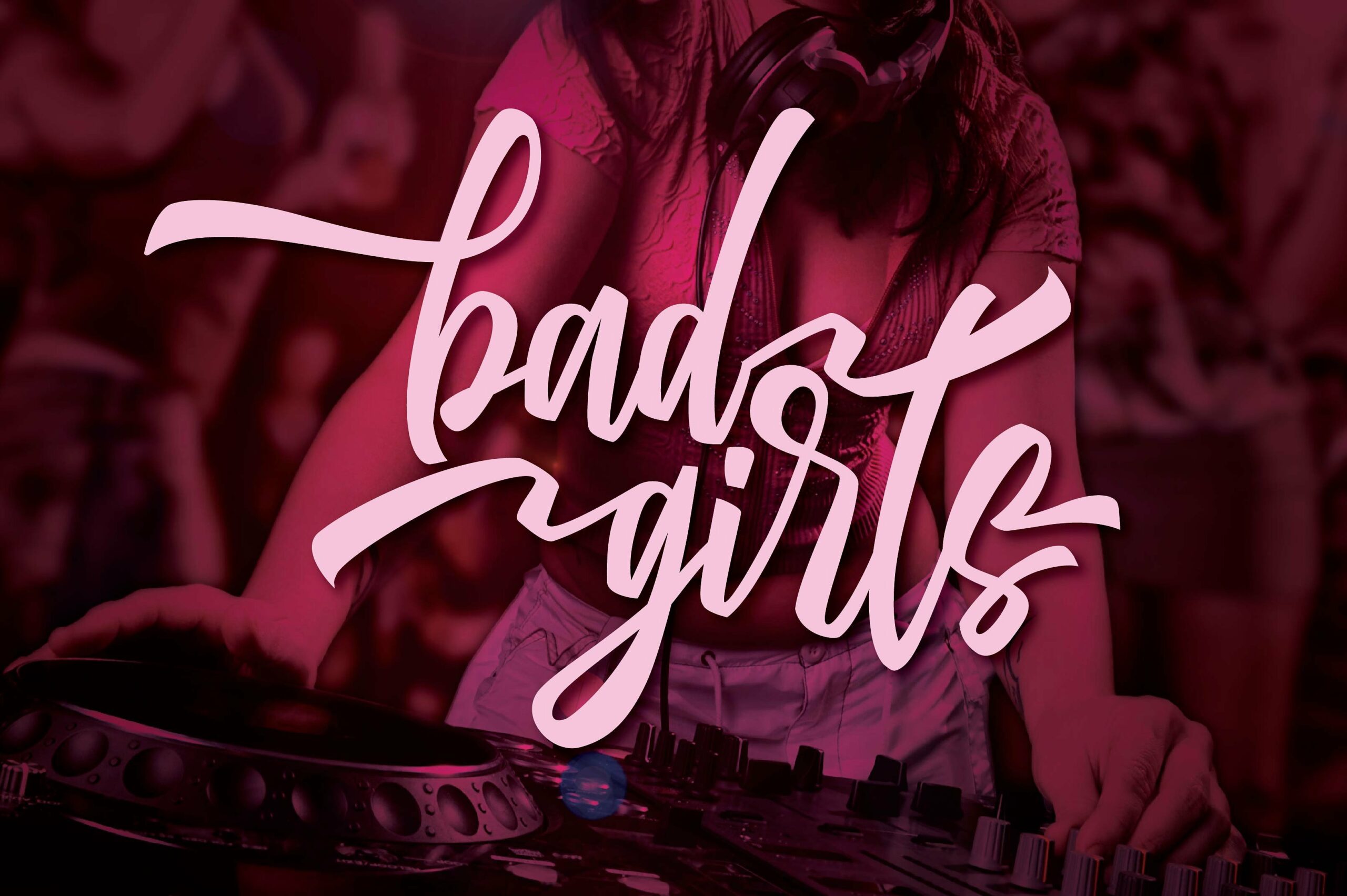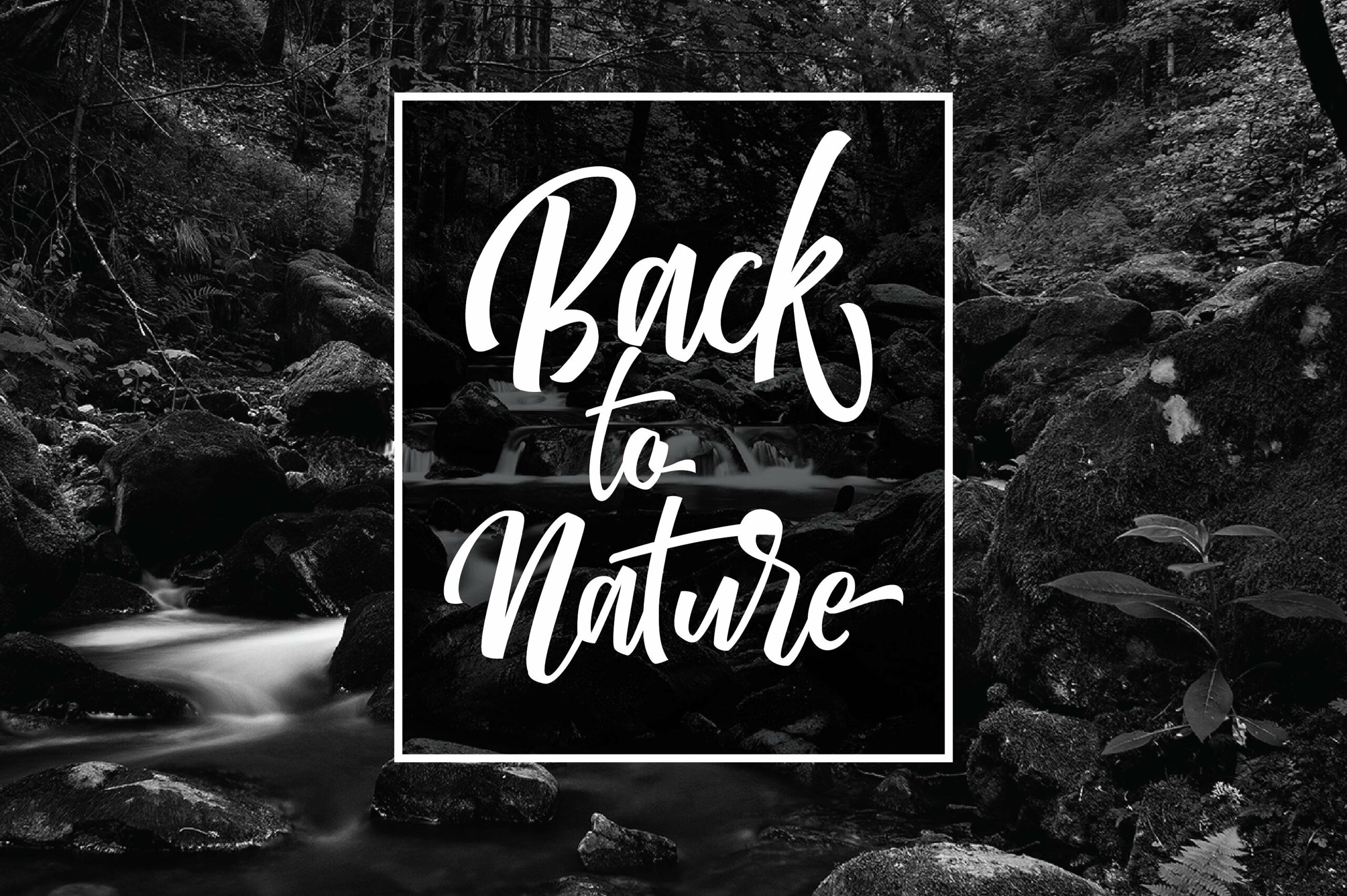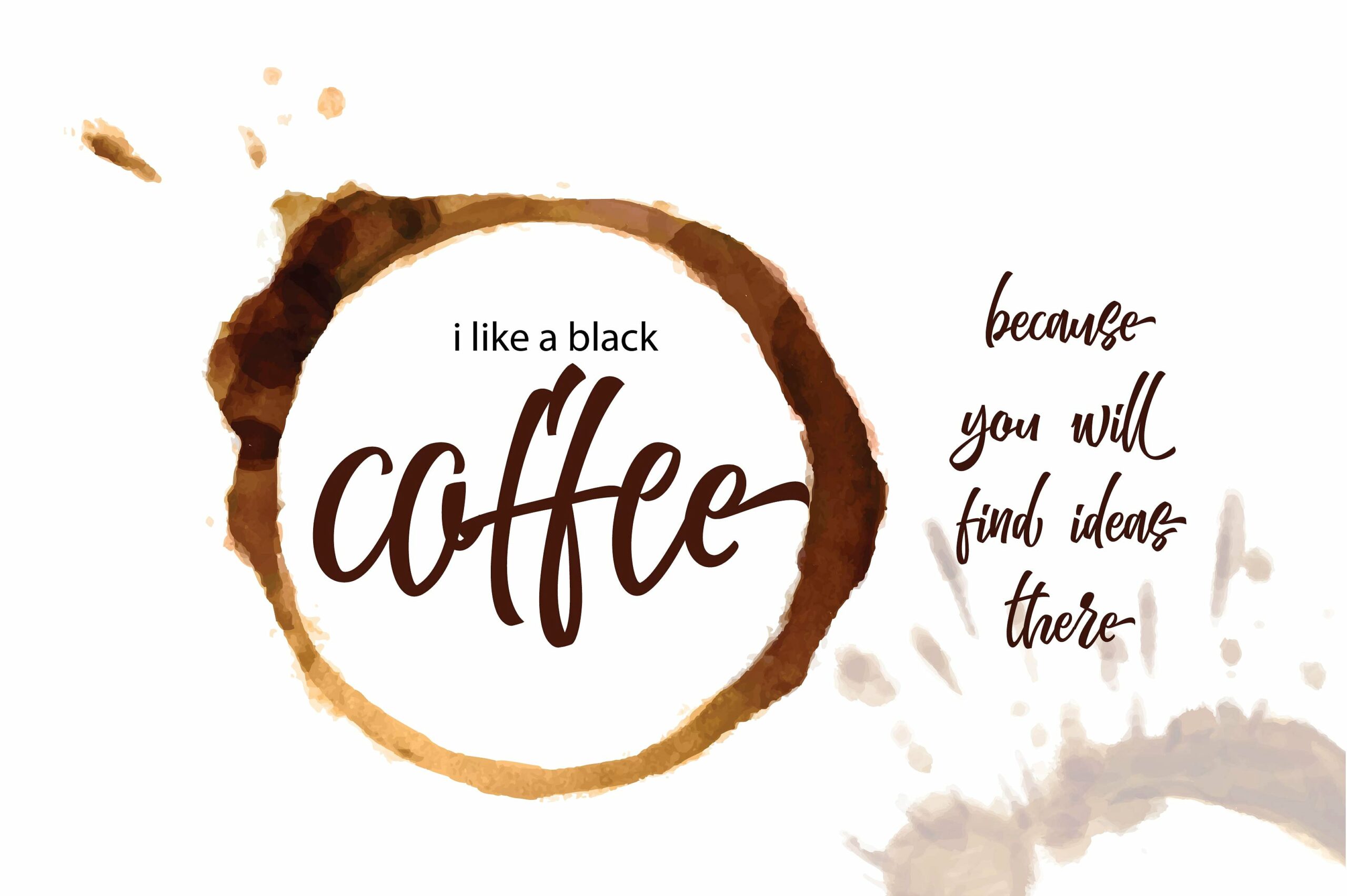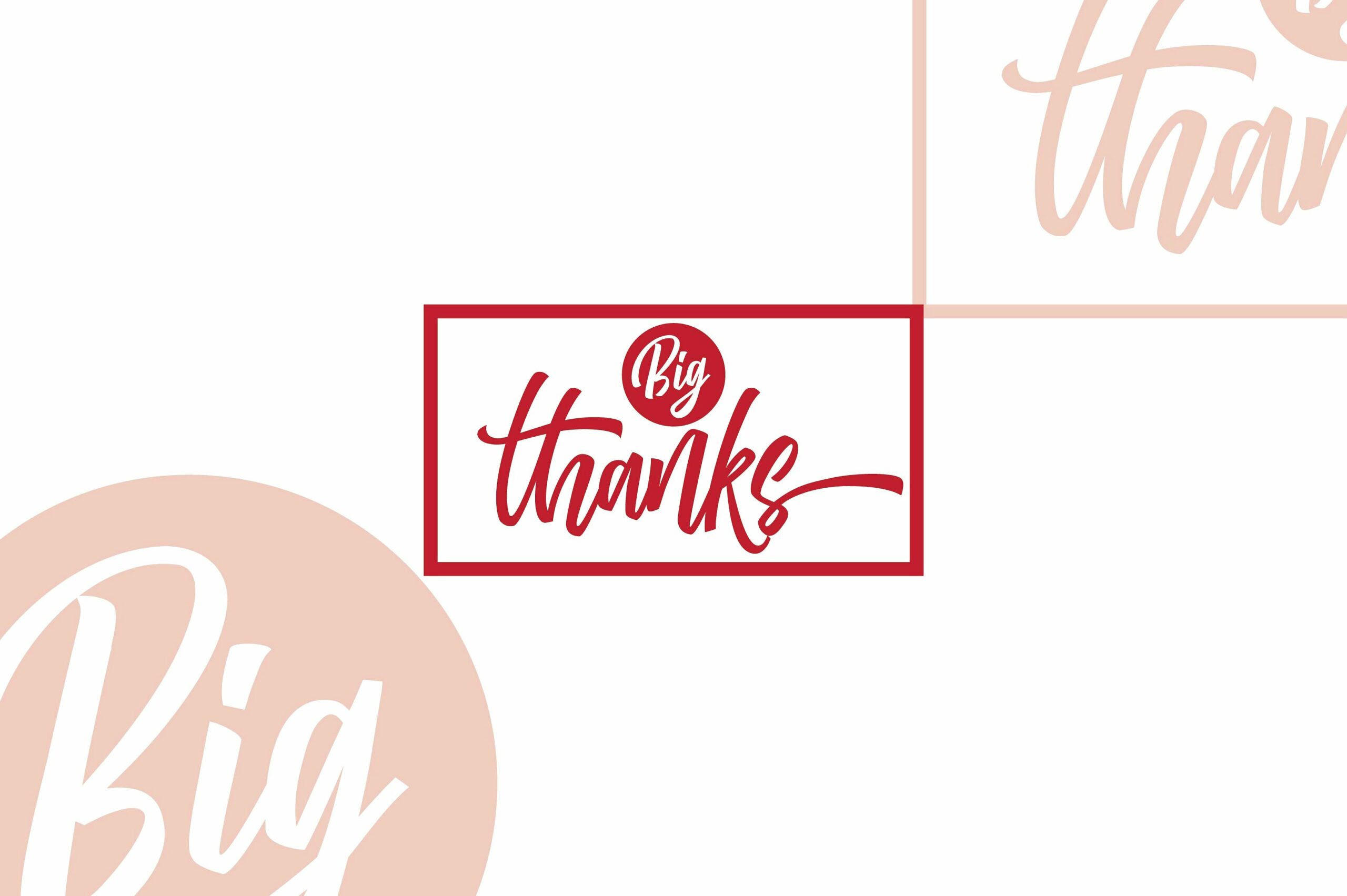
HomeScript FontsMattheo Font Script Fonts Mattheo Font FacebookXPinterestWhatsApp Mattheo Font Poster 2 Mattheo Font Poster 3 Mattheo Font Poster 4 Mattheo Font Poster 5 About Mattheo Font Mattheo is a smooth hand lettered font. It features bold strong letters which will help you leave an impression. DOWNLOAD NOW People also explored Sezectra Font So Simple Font Wilona Font Mynaretta Font Venvale Font Qoumaria Readable Roseclif Font Waleye Font 381 0 TagsMattheo Font Previous articleBellatine FontNext articleWattiny Pro Font LEAVE A REPLY Cancel reply Comment: Please enter your comment! Name:* Please enter your name here Email:* You have entered an incorrect email address! Please enter your email address here Website: Save my name, email, and website in this browser for the next time I comment. Personal Use Free Harmony Personal Use Free Read more about this font Ardilla Font Personal Use Free Read more about this font Starry Cakes Personal Use Free Read more about this font Vogue Font Personal Use Free Read more about this font BLOG Modern Sans-Serif Fonts That Brands Love in 2025 In 2025, modern sans-serif fonts remain a top choice for brands looking to project clarity, professionalism, and... Top 10 Handwritten Fonts That Elevate Your Designs Elegant Wedding Invitation Fonts – Handwritten & Script Fonts Fonts That Capture the Spirit of New York City